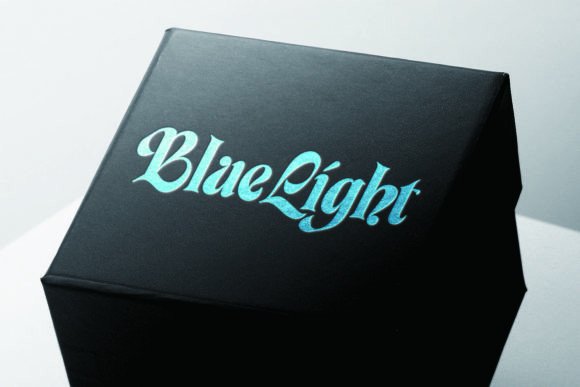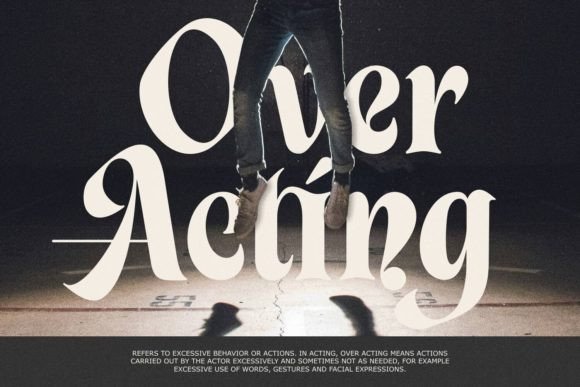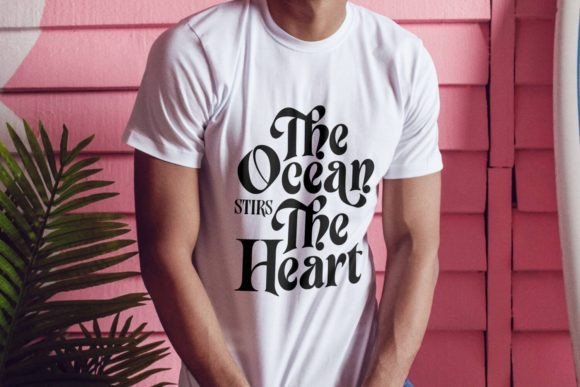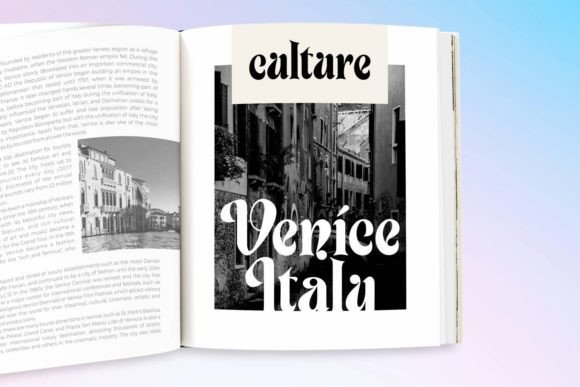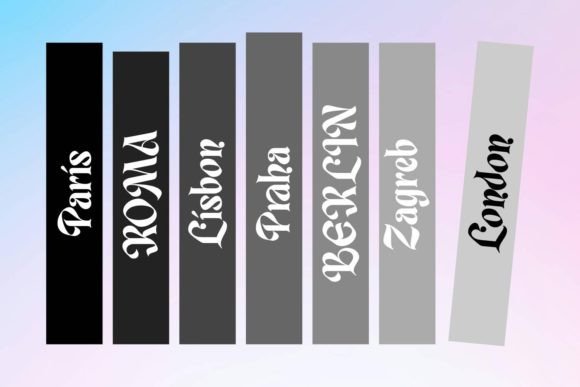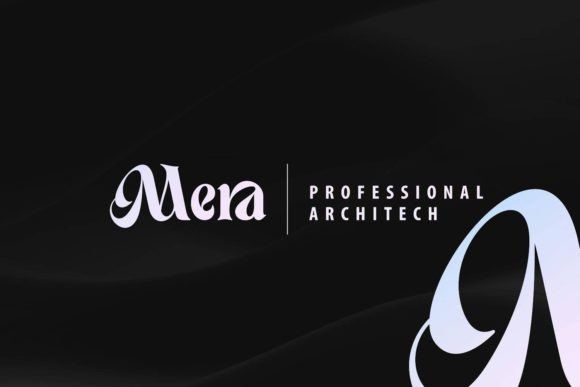
Introduction to Guthen Delima Font
Guthen Delima is an elegant and bold display serif font.
Fall in love with its incredibly versatile style and use it to create gorgeous wedding invitations, beautiful stationary art, eye-catching social media posts, and much more .
Key Features of Guthen Delima Font
Why Choose Guthen Delima Font?
Guthen Delima Font offers exceptional quality and versatility, making it a valuable addition to your design toolkit. Whether you’re creating for personal projects or commercial use, Guthen Delima Font delivers professional results.